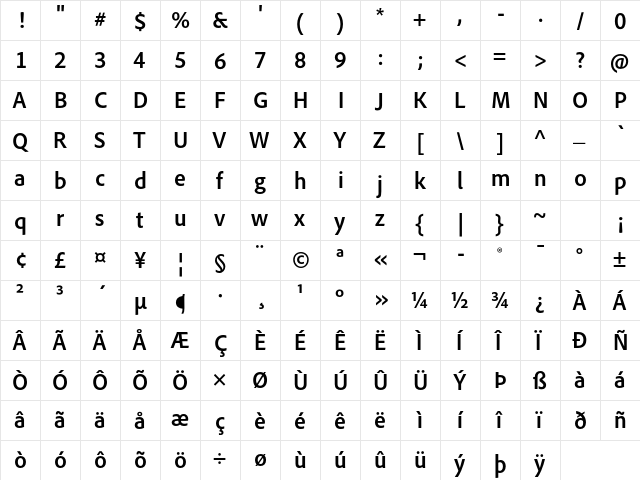
Adobe Clean SemiCondensed Bold Font Preview
Adobe Clean SemiCondensed Bold
Adobe Clean SemiCondensed Bold Font Details
| Designer | Robert Slimbach |
Design Context for Adobe Clean SemiCondensed Typeface
Adobe Clean SemiCondensed offers clean, dependable letterforms without strong stylistic allegiance, making it a practical choice for designers who need flexibility. Its bold stroke weight gives it real presence on the page. The condensed width makes it efficient for tight spaces without sacrificing legibility.
Pro Tip: Use Adobe Clean SemiCondensed in both headline and body roles to test its range before committing to a single application.